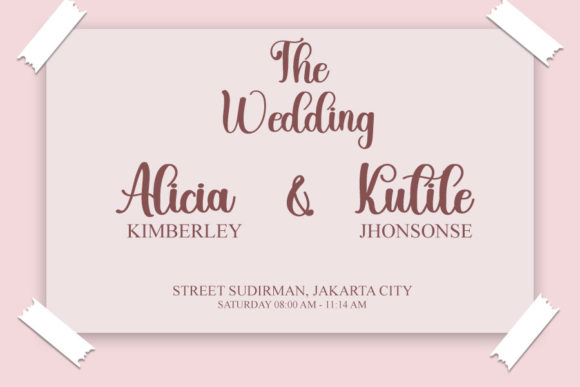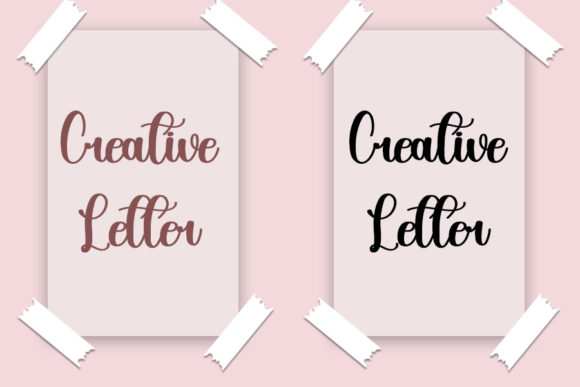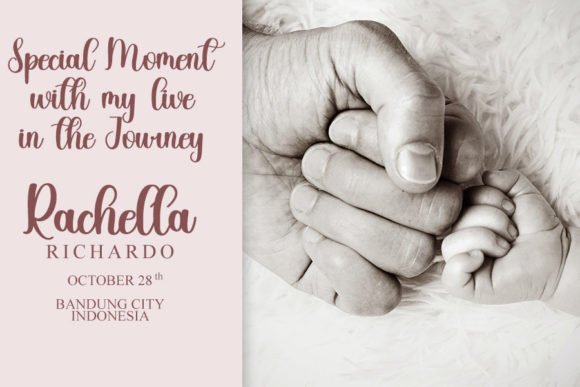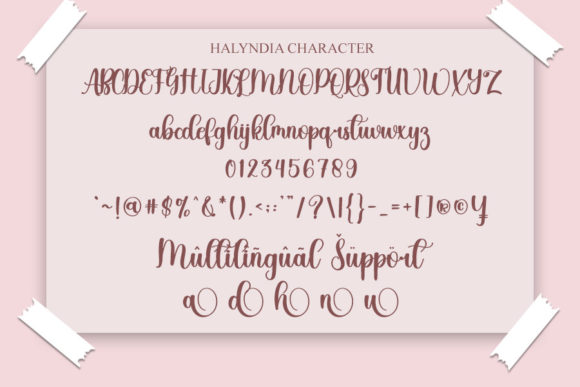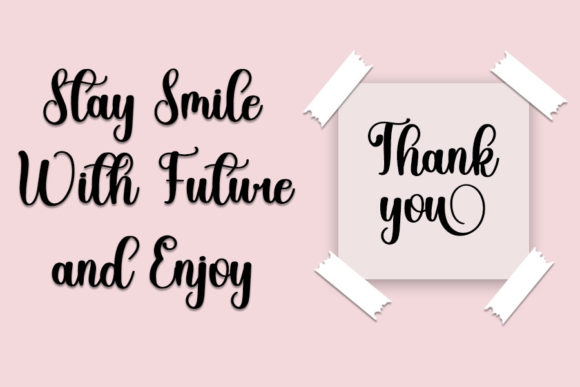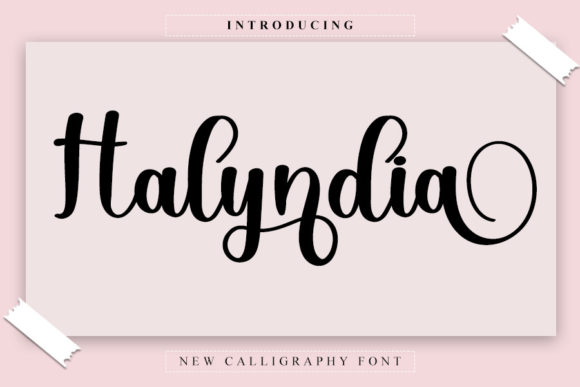
Halyndia Font: Elevate Your Designs with Timeless Elegance
In the world of typography, a well-crafted font can make all the difference in elevating your design projects from ordinary to extraordinary. If you’re a designer or crafter on the lookout for a stylish and versatile font, look no further than Halyndia. This beautiful handwritten font boasts a contemporary atmosphere and impeccable form, inspired by the timeless classic calligraphy.
The Inspiration Behind Halyndia
Halyndia’s design is rooted in the elegance of traditional calligraphy, yet it has been carefully crafted to meet the demands of modern design. The font’s creator aimed to strike a balance between classic sophistication and contemporary flair, resulting in a typeface that is both refined and approachable. The result is a font that exudes a sense of luxury and refinement, perfect for projects that require a touch of elegance.
Key Features of Halyndia Font
So, what sets Halyndia apart from other fonts? Here are some of its key features:
- Balanced and Varied: Halyndia’s strokes are carefully balanced to create a harmonious flow, making it a joy to read and behold. The font’s varied letterforms add visual interest, preventing monotony and keeping your designs engaging.
- Not Too Thin, Not Too Thick: The font’s weight is expertly calibrated to ensure that it’s not too thin or too thick, making it suitable for a wide range of applications, from digital displays to print materials.
- Contemporary Atmosphere: Halyndia’s design is firmly rooted in the present, with clean lines and a crisp aesthetic that will make your designs feel fresh and modern.
- Impeccable Form: Each letterform has been meticulously crafted to ensure that the font is a pleasure to read and use.
Halyndia is an ideal choice for designers and crafters working on a variety of projects, including:
- Branding and Logo Design: Use Halyndia to create stunning logos and brand identities that exude sophistication and elegance.
- Wedding and Event Planning: Add a touch of luxury to your wedding invitations, stationery, and event materials with this beautiful font.
- Packaging and Product Design: Elevate your product packaging with Halyndia’s refined and contemporary aesthetic.
- Digital and Print Media: Use Halyndia in your digital and print projects, such as brochures, magazines, and social media graphics, to add a touch of class and sophistication.
Why Choose Halyndia?
- Unique and Versatile: Halyndia’s distinctive design makes it an excellent choice for designers looking to create unique and memorable designs.
- Easy to Read: The font’s clear and balanced letterforms ensure that your text is easy to read, even at small sizes.
- High-Quality Design: Halyndia has been crafted with attention to detail, ensuring that it meets the highest standards of design and typography.
In conclusion, Halyndia is a stunning handwritten font that offers the perfect blend of classic elegance and contemporary flair. With its impeccable form, balanced and varied design, and versatile nature, it’s an excellent choice for designers and crafters working on a wide range of projects. Whether you’re looking to create stunning logos, elegant wedding stationery, or sophisticated packaging, Halyndia is the perfect font to elevate your designs and add a touch of timeless elegance.